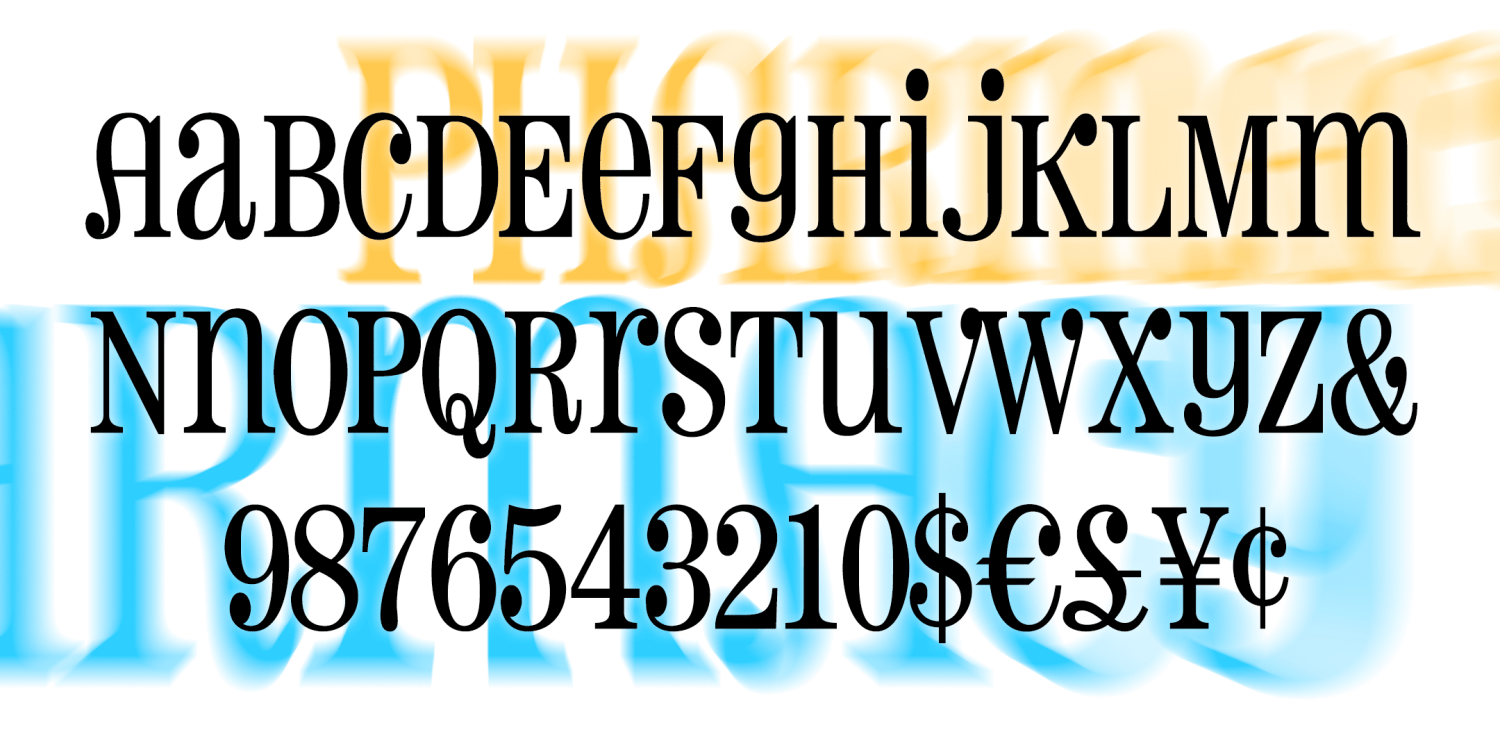
PHARMACY is a fun mix of upper- and lowercase, with big ball terminals and a narrow width. It was inspired by the sign at a local drugstore in my old hometown of Albany, NY. Waiting at the red light, I’d often stared at the sign, admiring its jolly…